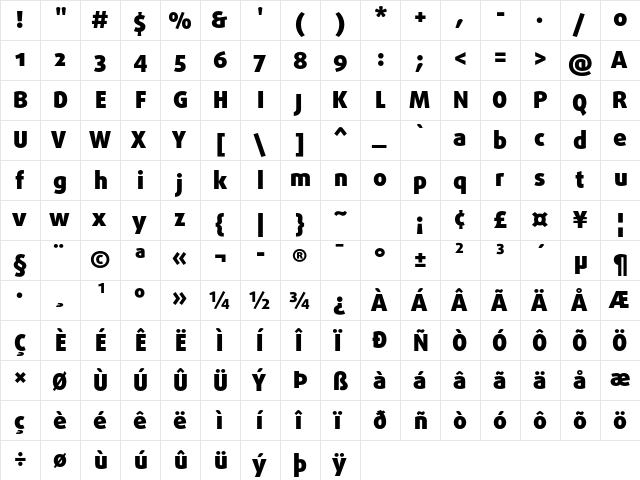
DaxlinePro Black
| Foundry | FSI Fonts und Software GmbH |
| Designer | Hans Reichel |
Design Context for DaxlinePro Typeface
DaxlinePro offers clean, dependable letterforms without strong stylistic allegiance, making it a practical choice for designers who need flexibility.